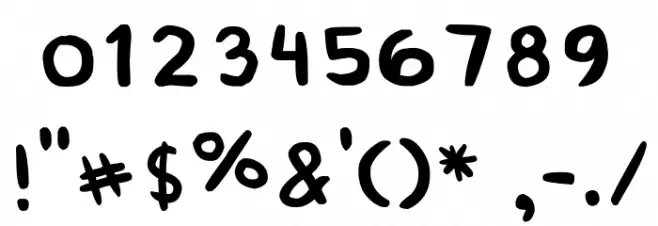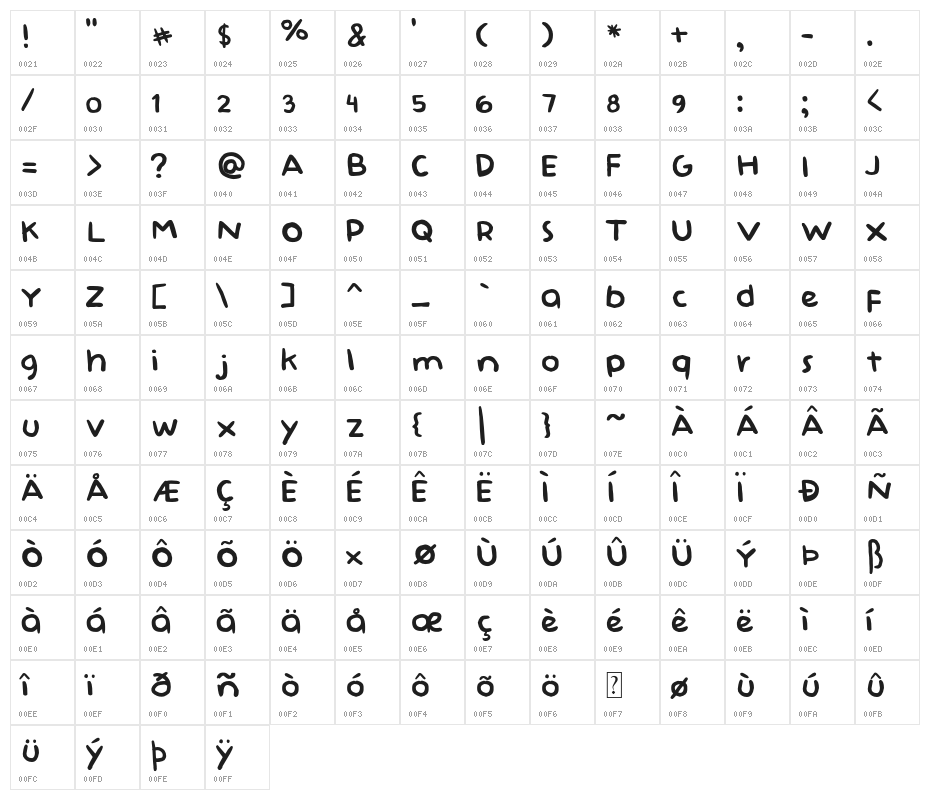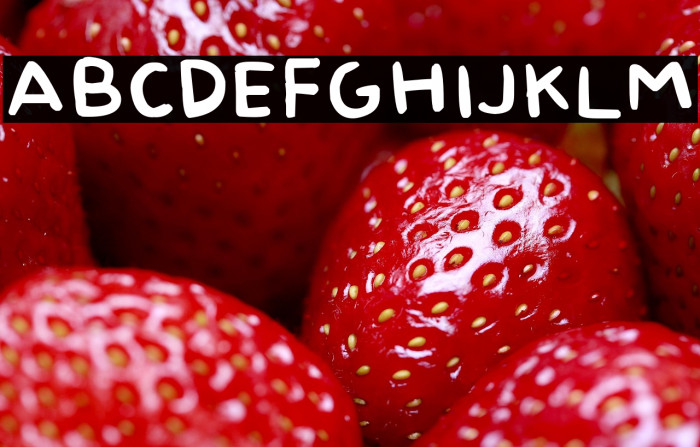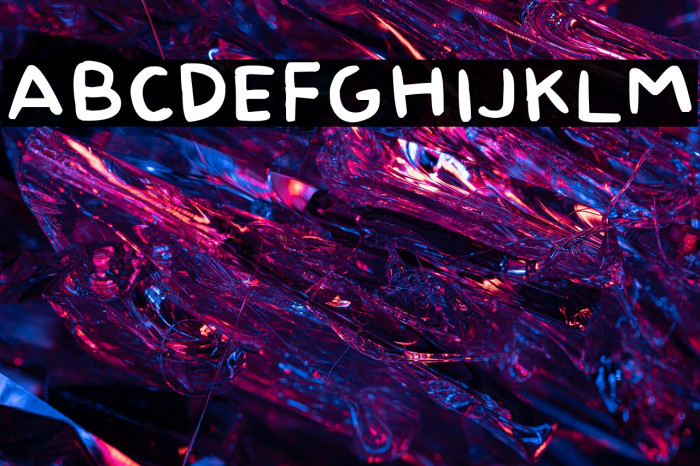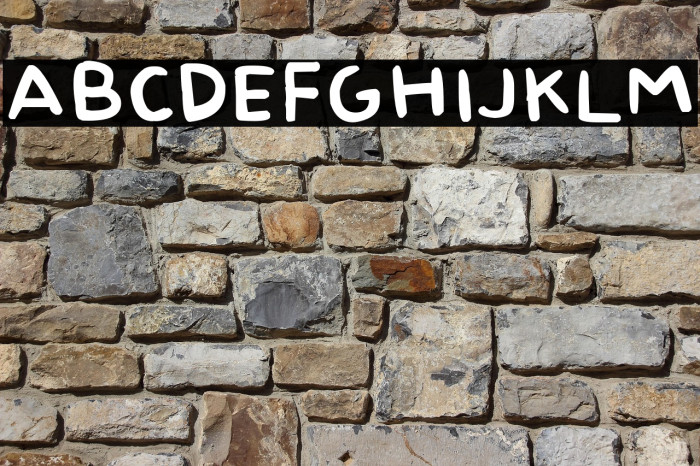
Baby Doll Font
Baby Doll Description
This playful and whimsical font features rounded, hand-drawn characters that exude a sense of fun and informality. The letters are slightly irregular, giving them a charming, childlike quality. The strokes are consistent in width, creating a uniform appearance that is easy to read while maintaining a casual, friendly vibe. This font includes both uppercase and lowercase letters, numerals, and a variety of special characters, making it versatile for different uses. Its unique style is perfect for projects that aim to convey warmth and approachability.
| Use Case | Headlines, Logos, Informal text |
| Proposed Projects | Ideal for children's books, playful branding, greeting cards, and casual invitations. |